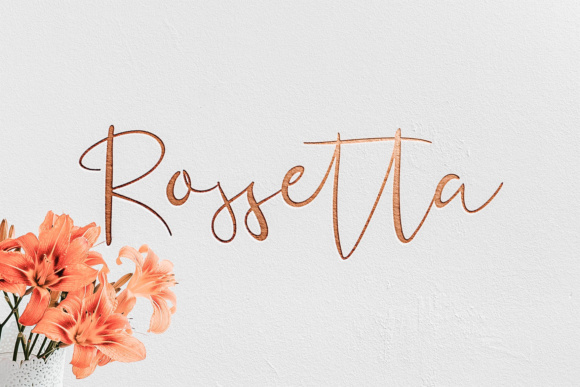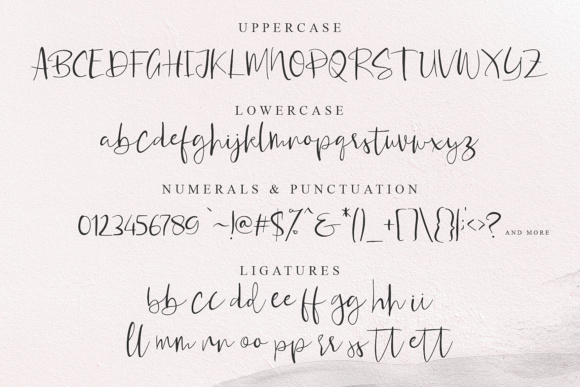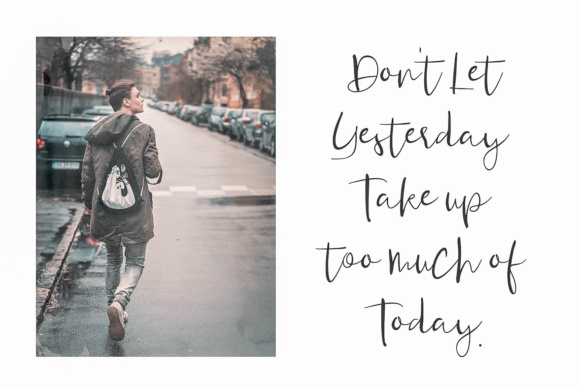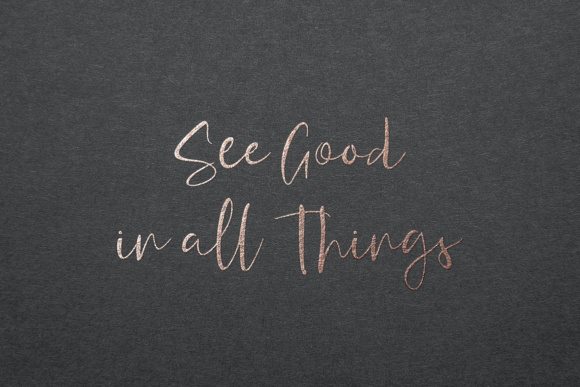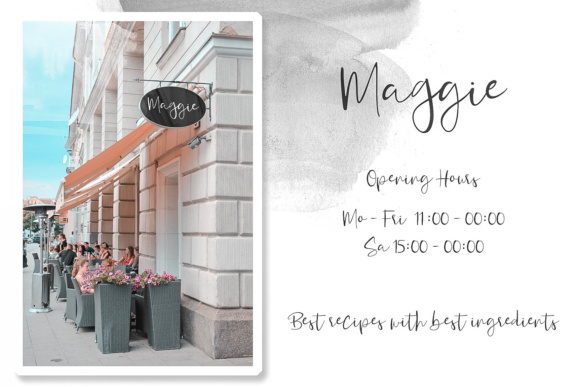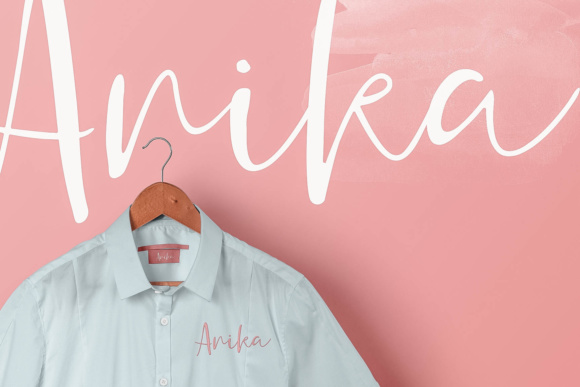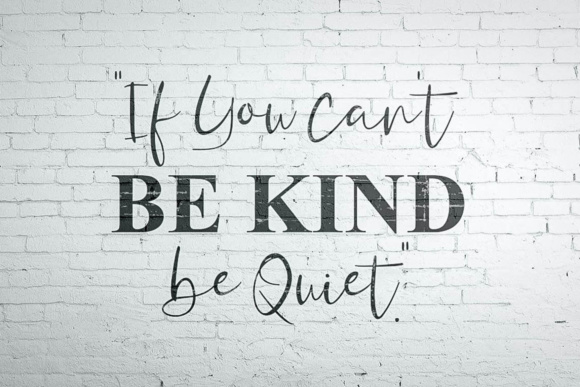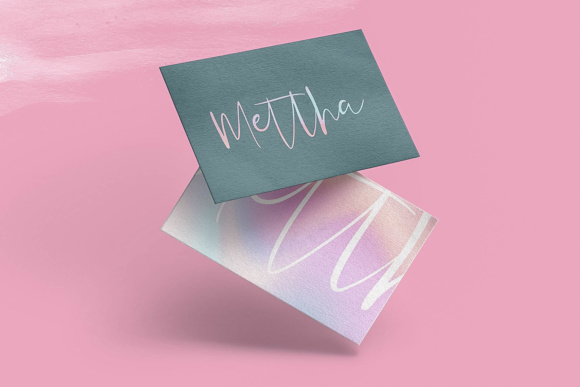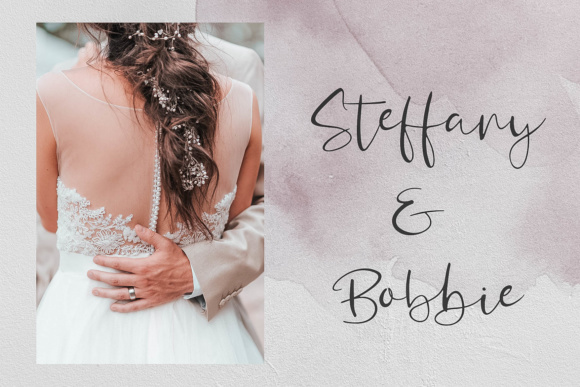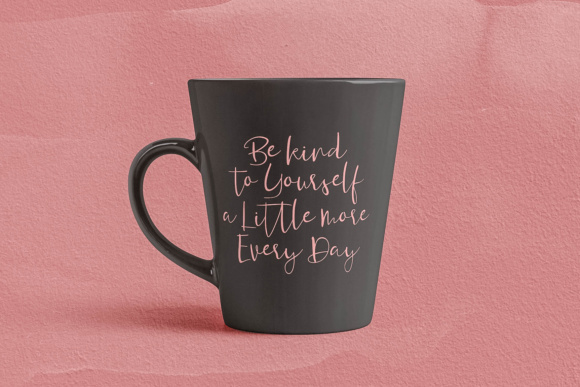
Rossetta Font
About Rossetta Font
Rossetta is a beautiful and feminine script font, suitable for a wide range of works. This font looks exemplary in invitationals and print work, but works well in fashion oriented digital designs.